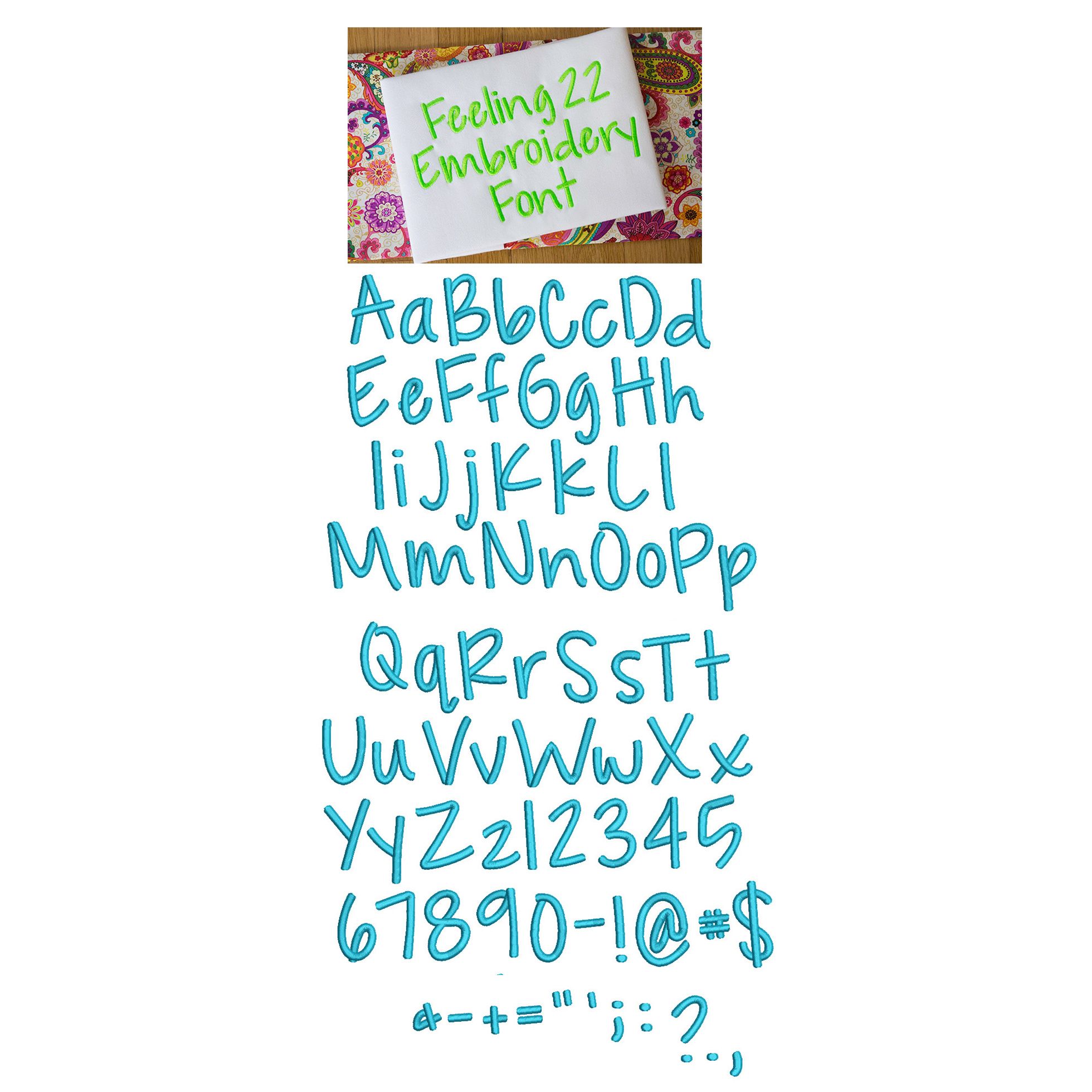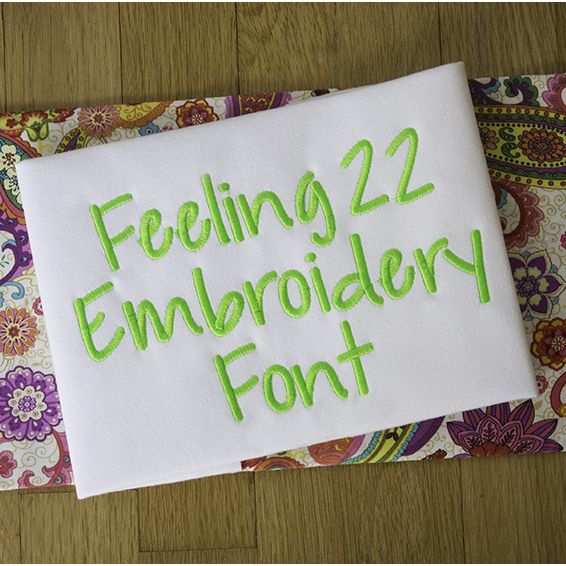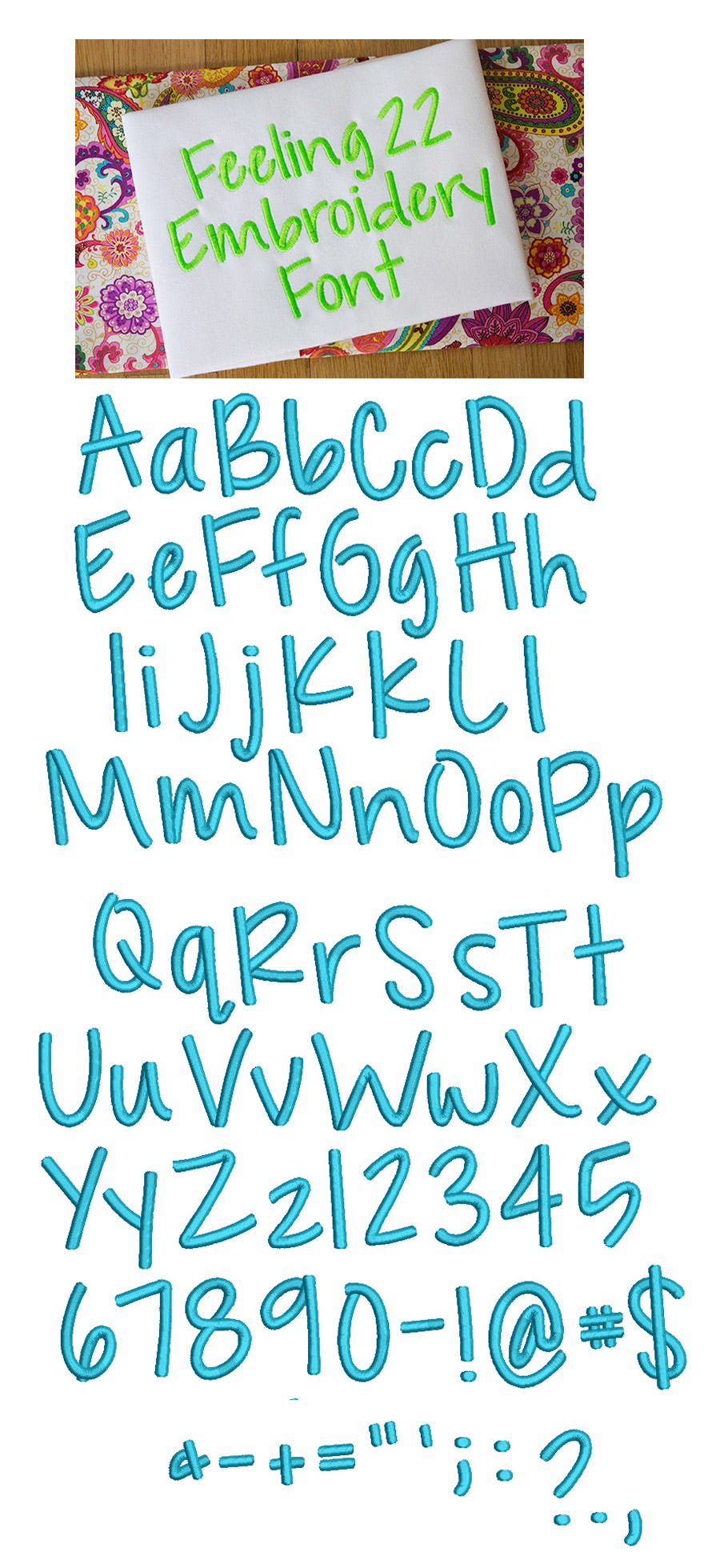
Feeling 22 Satin Stitch Embroidery Font
A cute and simple font with a touch of whimsy....perfect for both boys and girls! All of our font alphabets are 100% manually digitized to bring you maximum stitch quality.